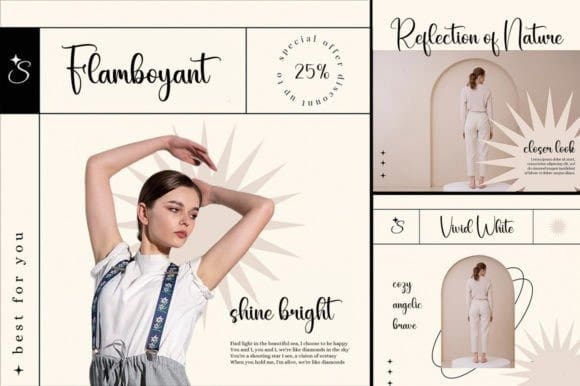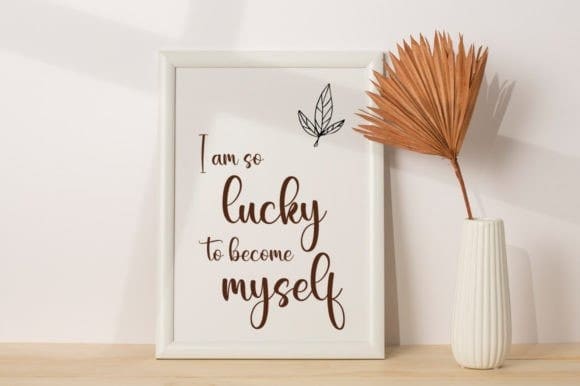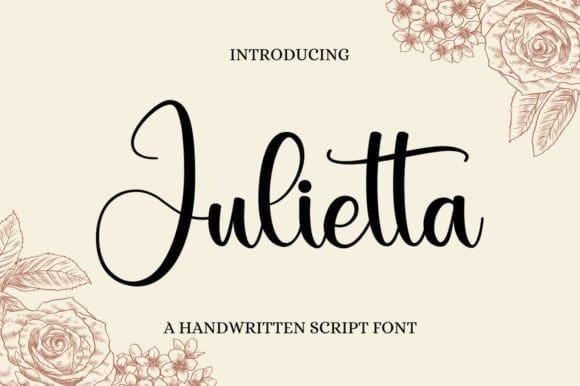
Julietta Script Typeface
Julietta Script Typeface, is a lovely and timeless handwritten font. It is the best choice for creating eye-catching logos, branding, and quotes.